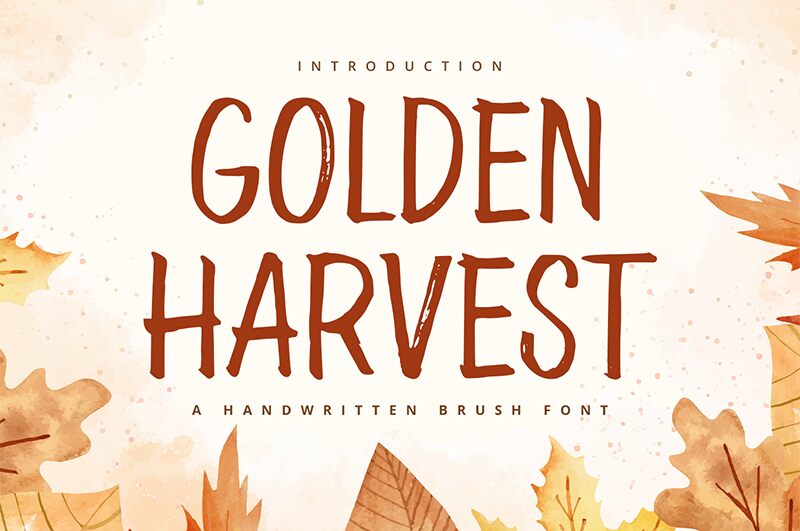
Golden Harvest
Golden Harvest font is a brush typeface presented by Alpaprana Studio. The characters have a hand-drawn appearance with an organic flow and artistic feel to them. This font carries vintage influences and rustic charm which become more obvious when it’s seen on keywords or common phrases.
Consider this free brush font for advertisements, interior design projects, or logo designs. Posters, magazines, book covers, labels, tags, packages and business cards are also eligible items for using Golden Harvest in their presentation.